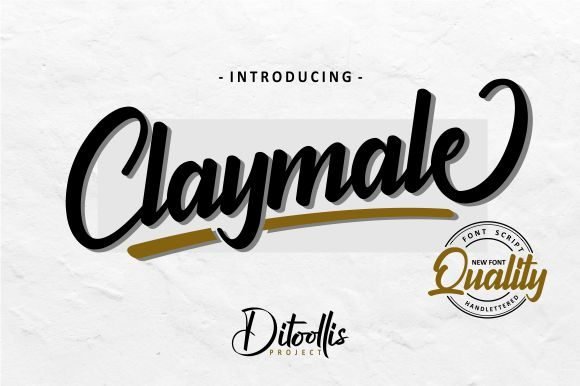
Unleash Your Creativity with the Charm of Claymale Font
Have you ever been in a creative rut, struggling to find the perfect font to bring your design to life? I know I have! It’s like searching for a missing piece of a puzzle, and when you finally find it, everything clicks into place. That’s exactly what happened when I stumbled upon the Claymale Font. This delightful handwritten font is more than just a typography choice – it’s an invitation to express yourself and add a personal touch to your work.
With its unique feel and striking swashes, the Claymale Font is a game-changer for designers looking to add some authenticity to their projects. Whether you’re working on a brand identity, a blog post, or a social media campaign, this font is sure to captivate your audience and leave a lasting impression. The Claymale Font is a valuable asset in any designer’s toolkit, offering a level of personality and charm that’s hard to find in other fonts.
Key Features of Claymale Font
- Unique Characteristics: Claymale Font features a unique, hand-drawn aesthetic with subtle imperfections, giving it a human touch and making it stand out in designs.
Claymale Font Review
Overall, I think Claymale Font is a beautiful and unique addition to any design project. It’s got a certain charm that sets it apart from more common fonts. ✨ The curves and irregularities give it a handcrafted feel that’s perfect for creative or artistic projects.
Here are some things that I think work well with Claymale Font:
- ✨ Unique aesthetic: It’s got a distinct, quirky feel that can add character to your design.
- ✨ Versatile: It works well for both display and body text, and can be used in a variety of contexts.
- ✨ Elegant: Despite its irregularities, it has a certain elegance to it that makes it perfect for high-end designs.
Of course, like any font, Claymale has its limitations:
- ⚠️ Readability: The irregularities can make it harder to read, especially in smaller sizes or at a distance.
- ⚠️ Limited legibility: The curves and flourishes can sometimes make it difficult to distinguish between certain letters.
Overall, I think Claymale Font is a great choice for designers who want to add a unique touch to their projects. With its unique aesthetic and versatility, it’s a great addition to any font collection.
Tips for Getting the Most Out of the Claymale Font
To get the most out of the Claymale Font, use it for:
- Headings and titles to add a touch of whimsy and playfulness.
- Branding and logos to create a unique and memorable visual identity.
- Designs that require a vintage or retro aesthetic.
The Claymale Font is commonly used for:
- Children’s book covers and illustrations.
- Food and drink packaging design.
- Retro-themed posters and advertisements.